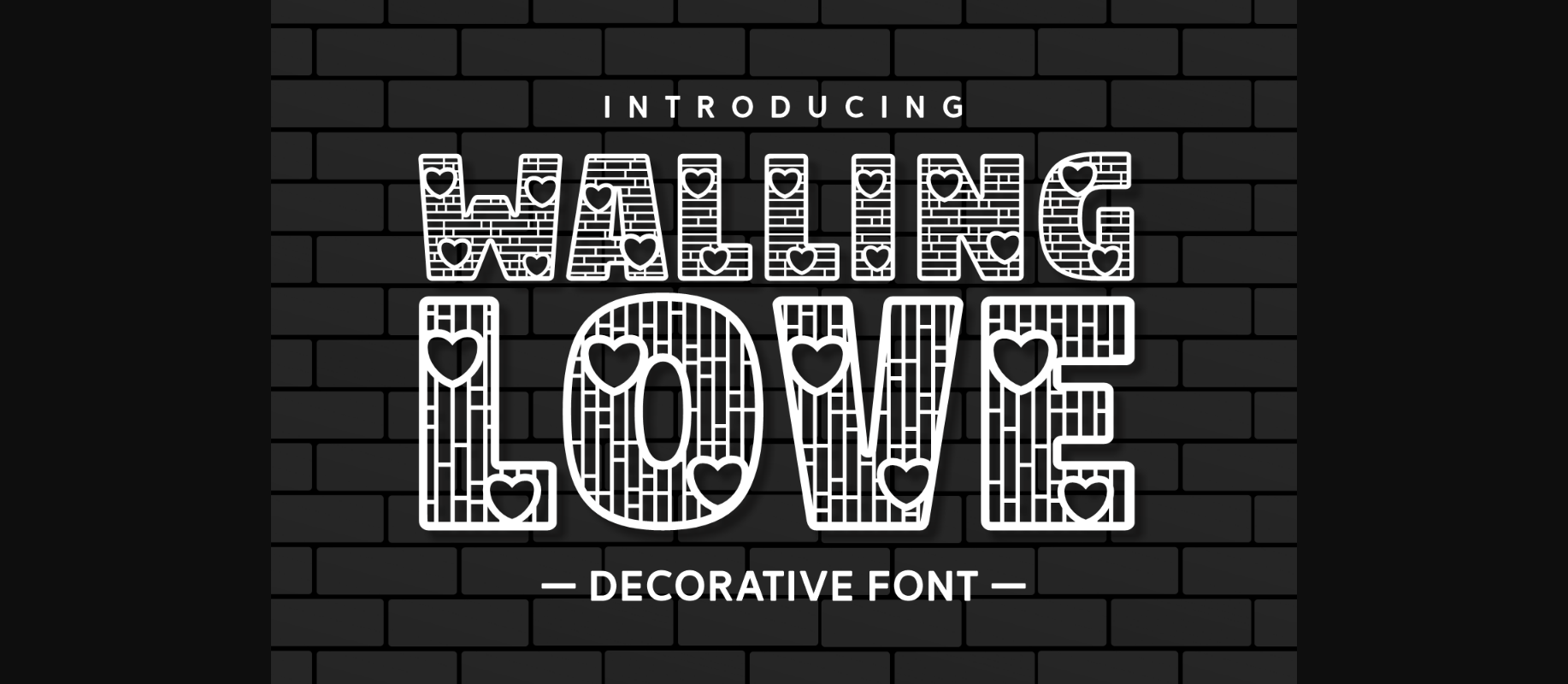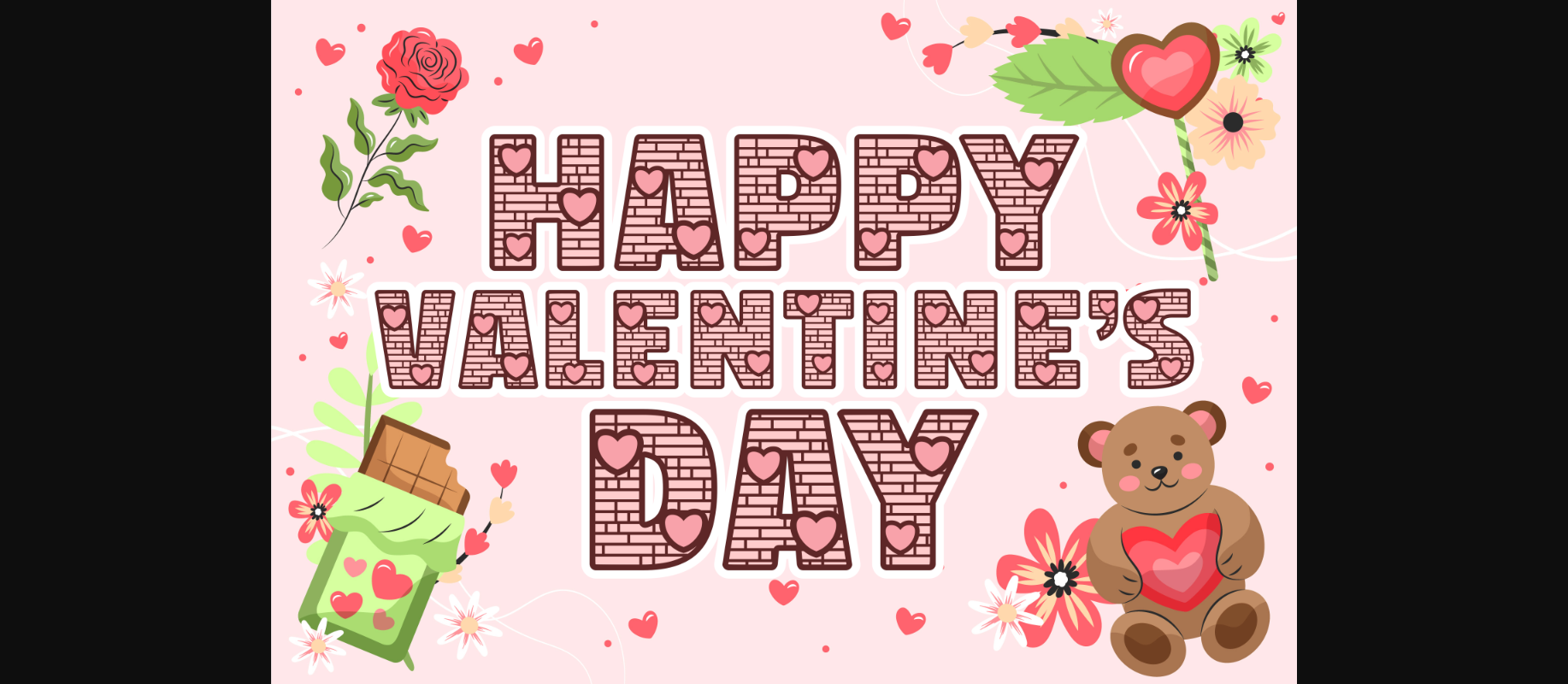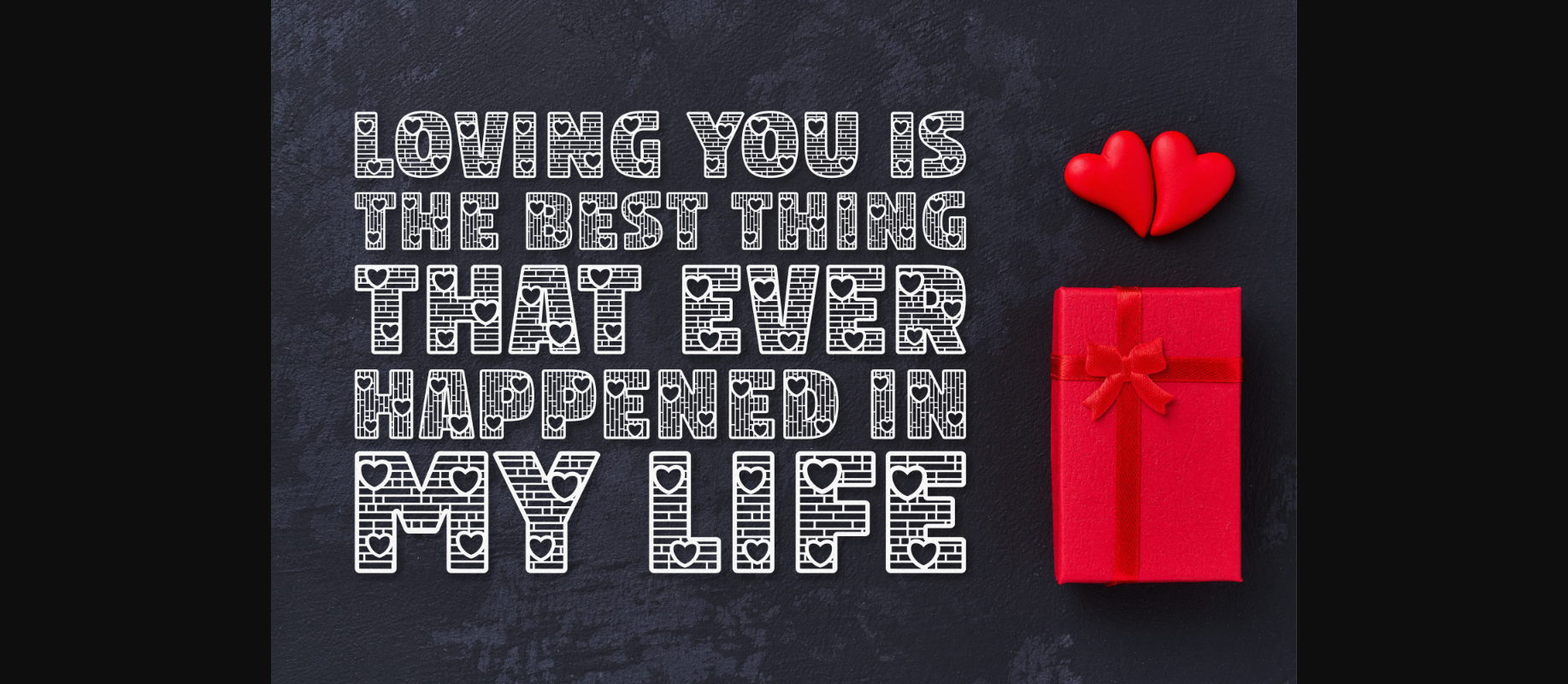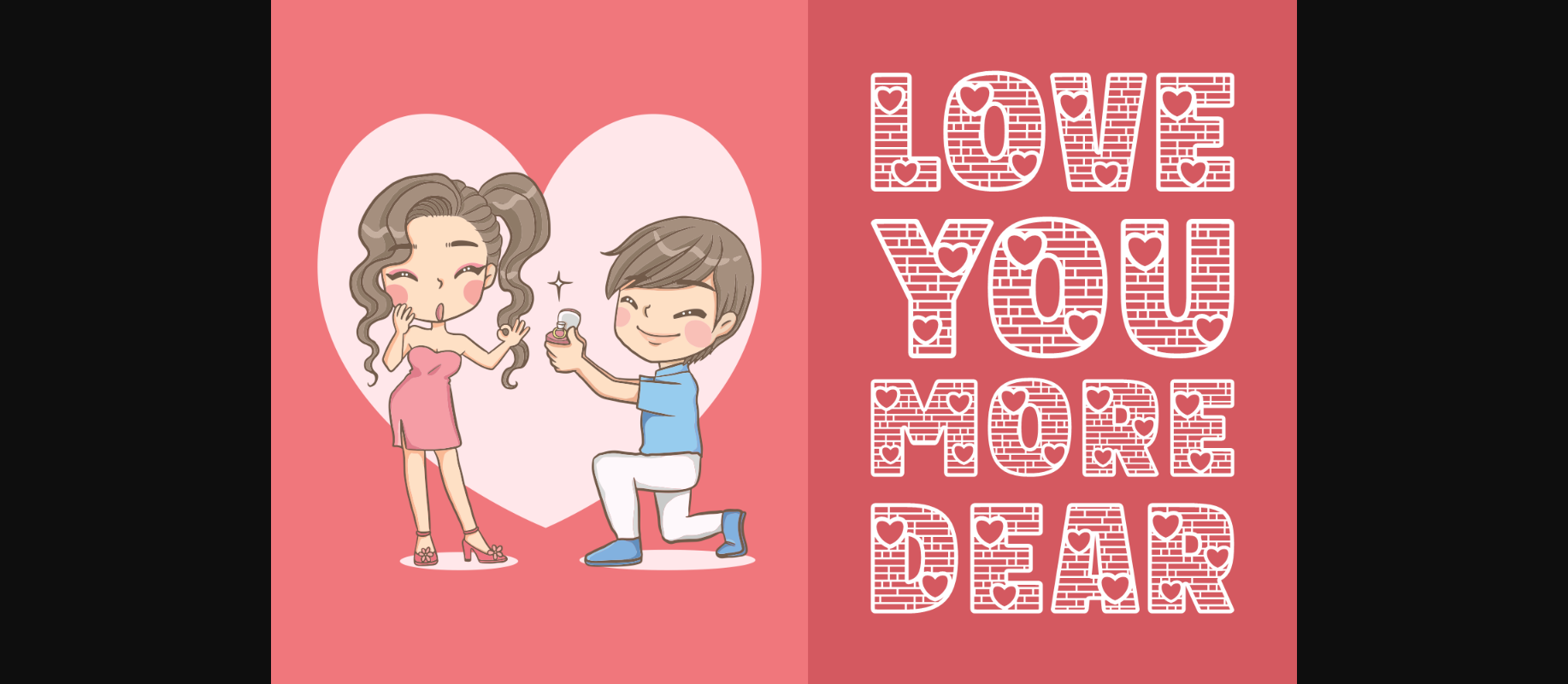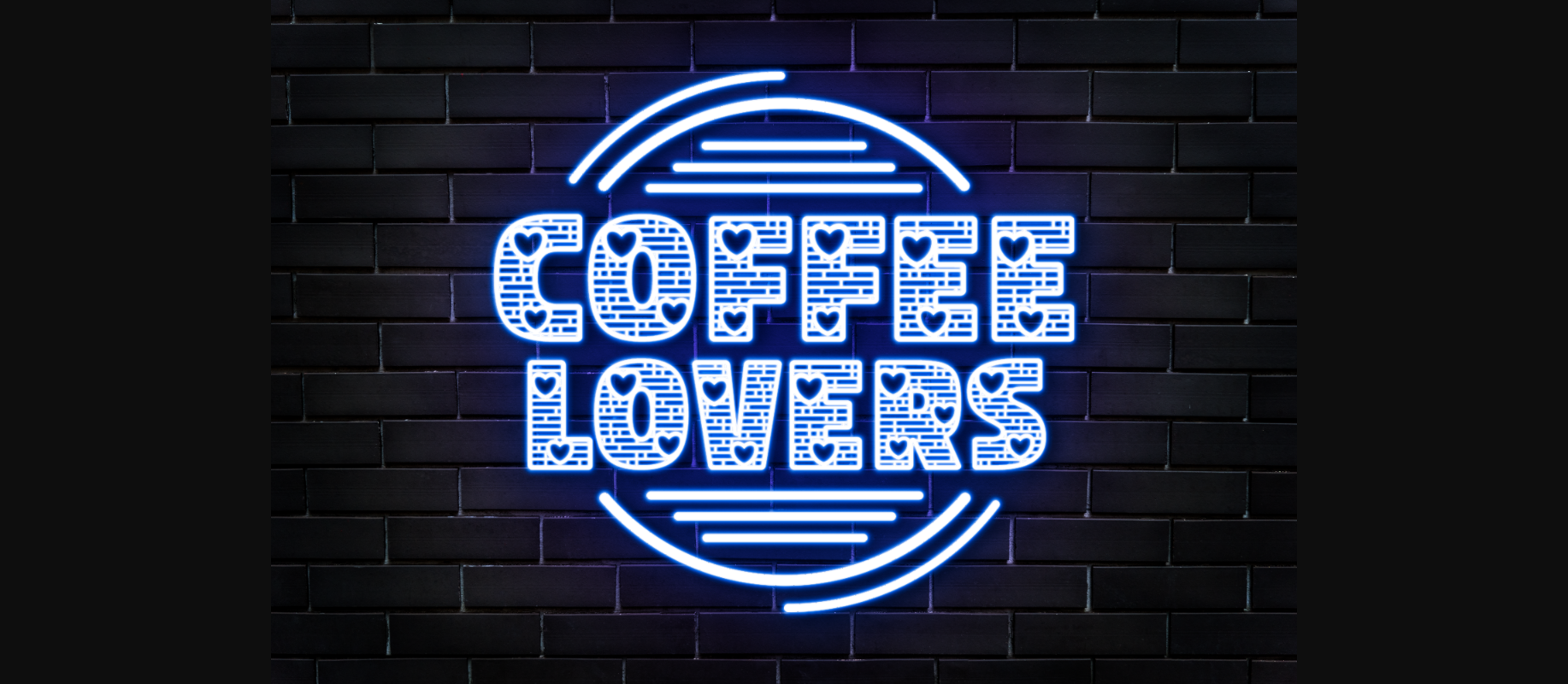
Walling Love Font
About Walling Love Font
Walling Love is a bold ad intricate decorative font that can make your text stand out! Use it to create outstanding branding designs, logos, marketing materials, or anything that needs to attract attention and impress!